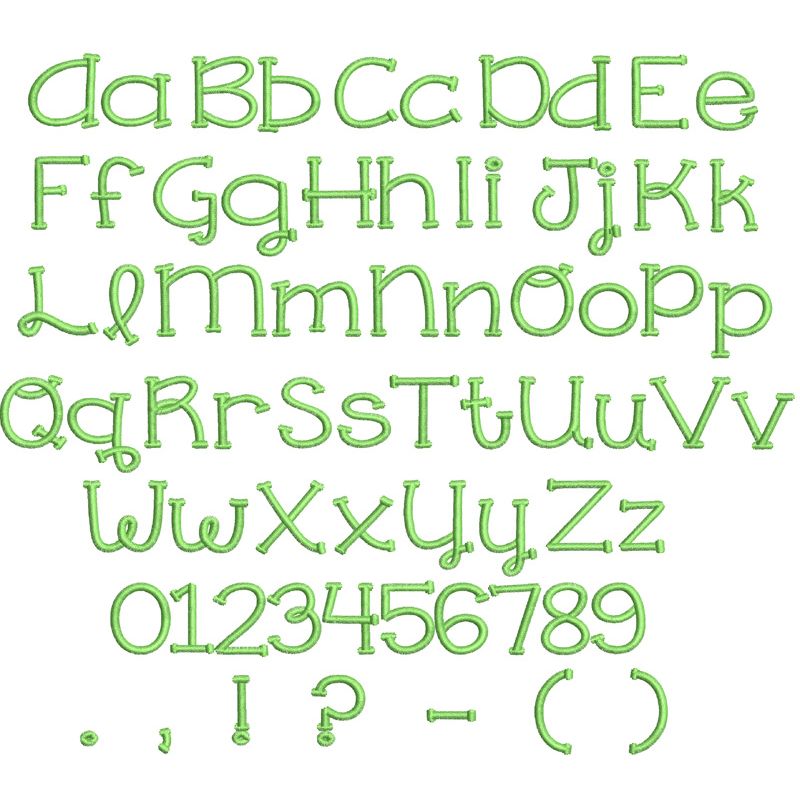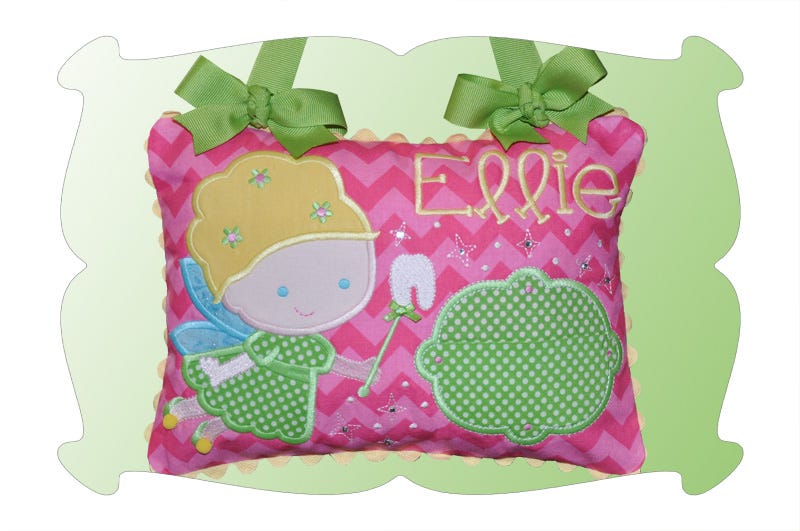
Riley Satin Stitch Embroidery Font
Riley Embroidery Font
One of our favorite embroidery fonts!
The font features bold letters that really stand out on t-shirts and projects.
The Riley Embroidery Font comes in 5 sizes! .75, 1.0, 1.5, 2.0 and 2.5 inches. Size refers to the average height of the letters in the set.
Upper Case letters A thru Z, lower case letters a thru z, numbers 0-9 and punctuation as shown.